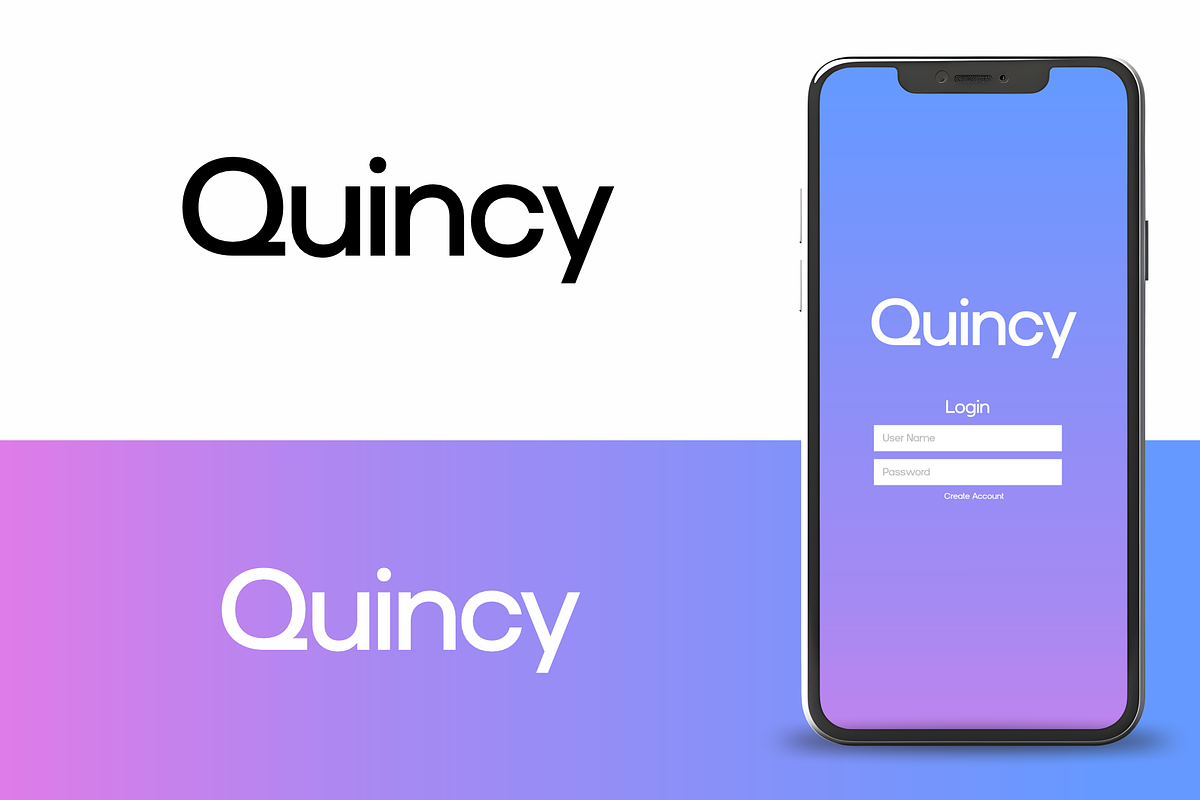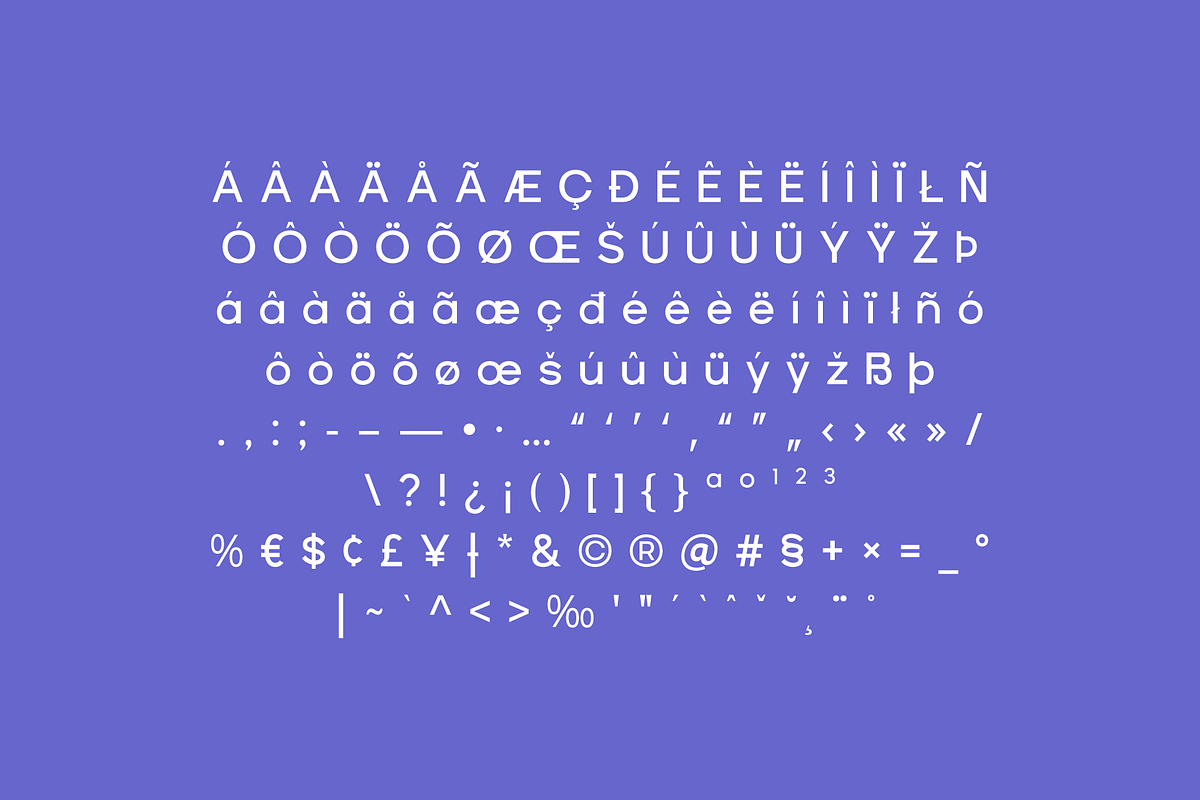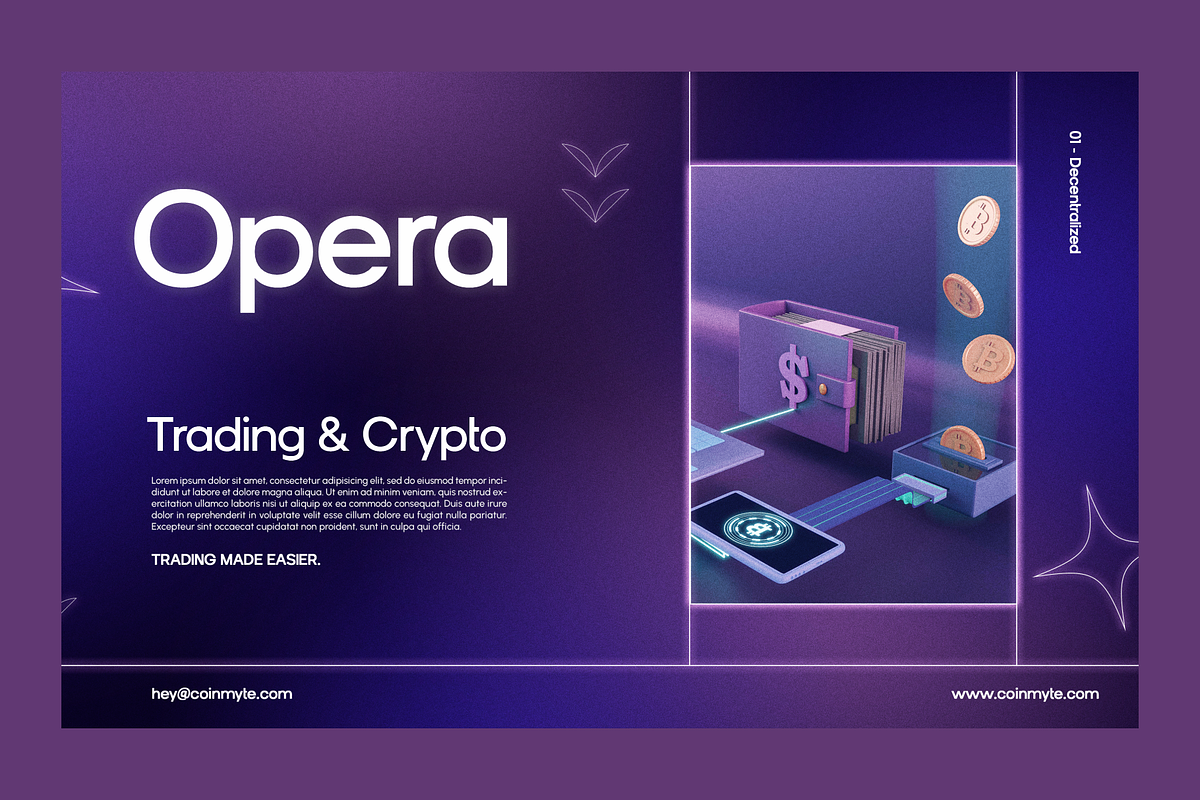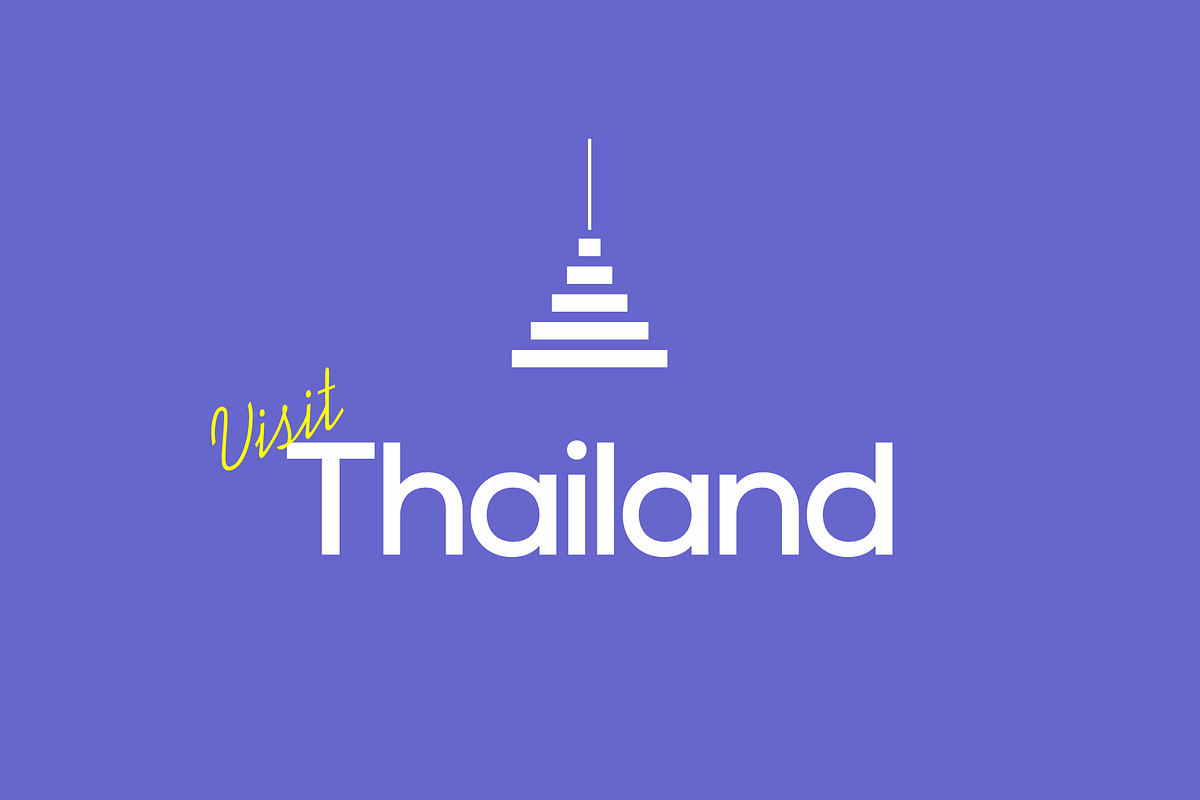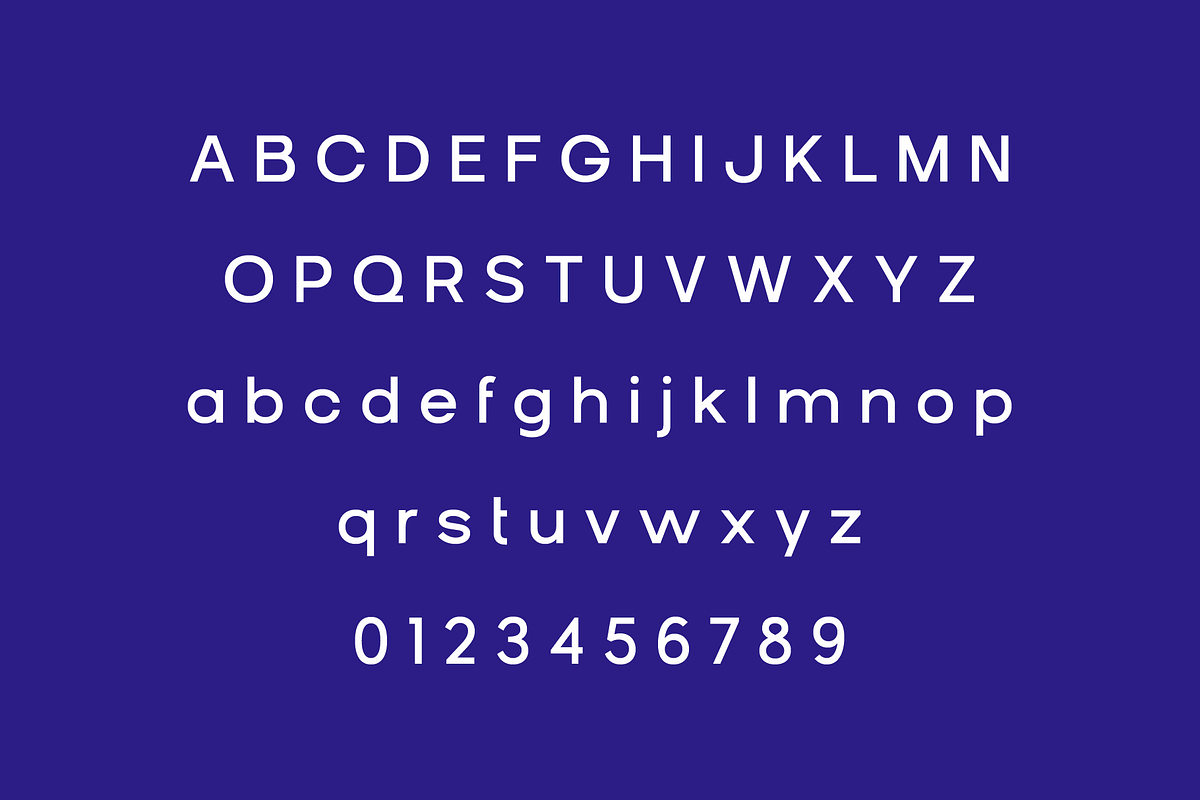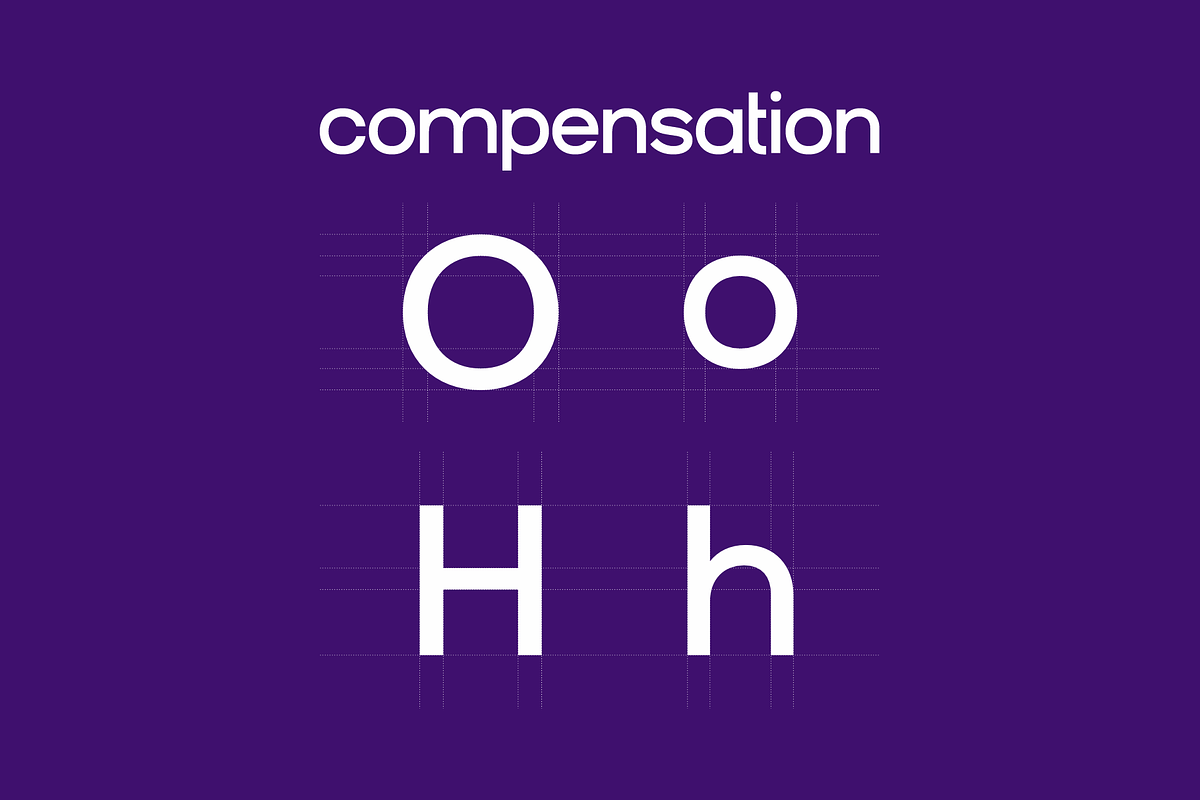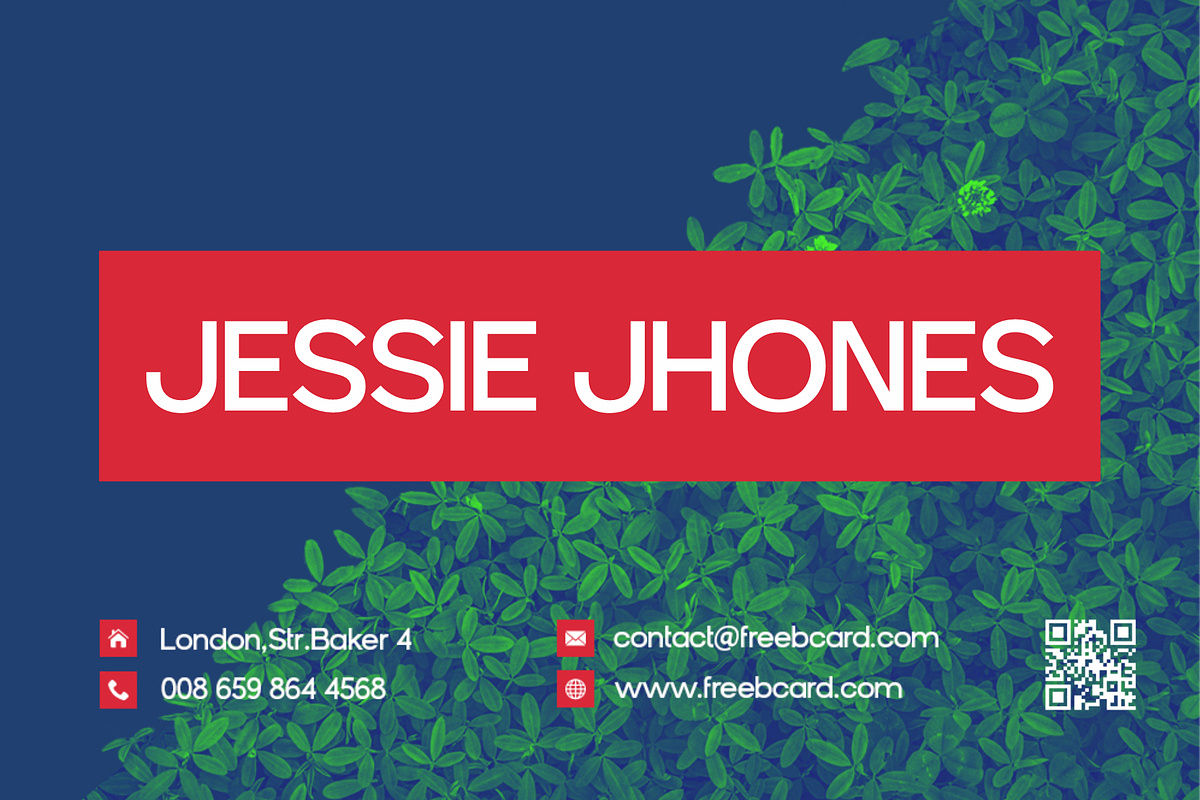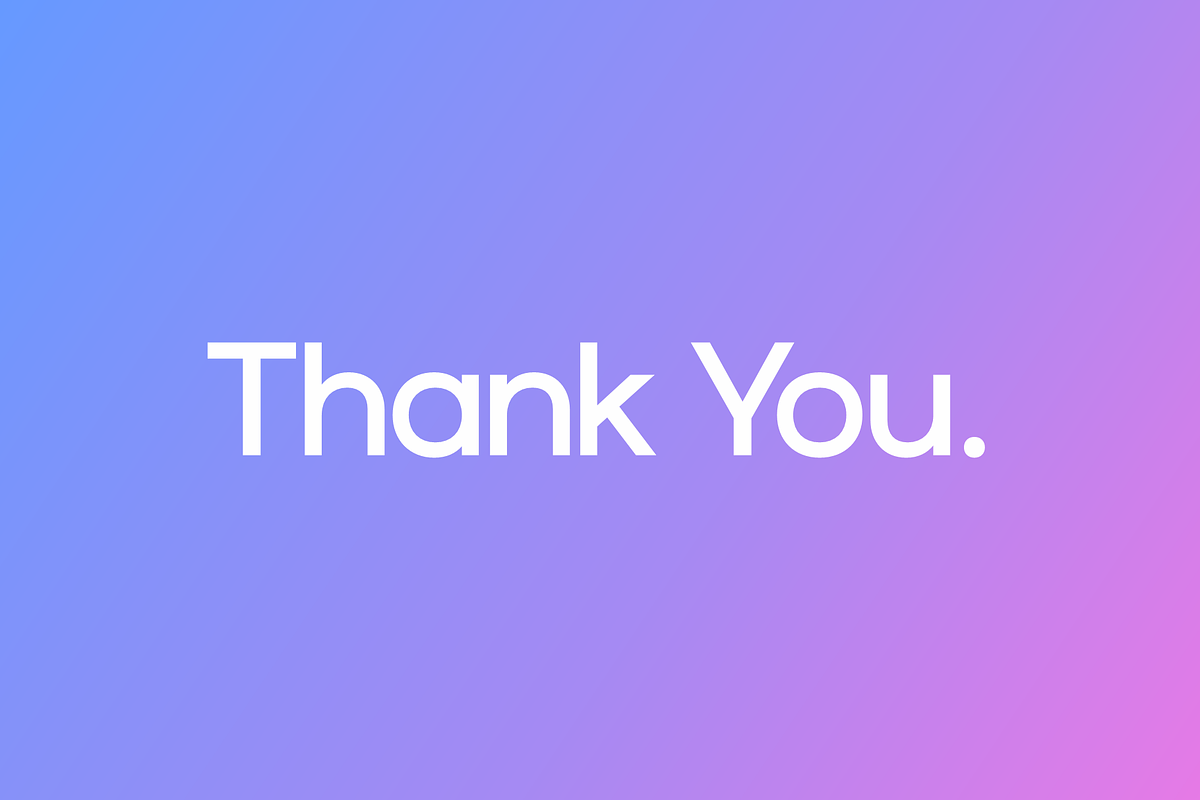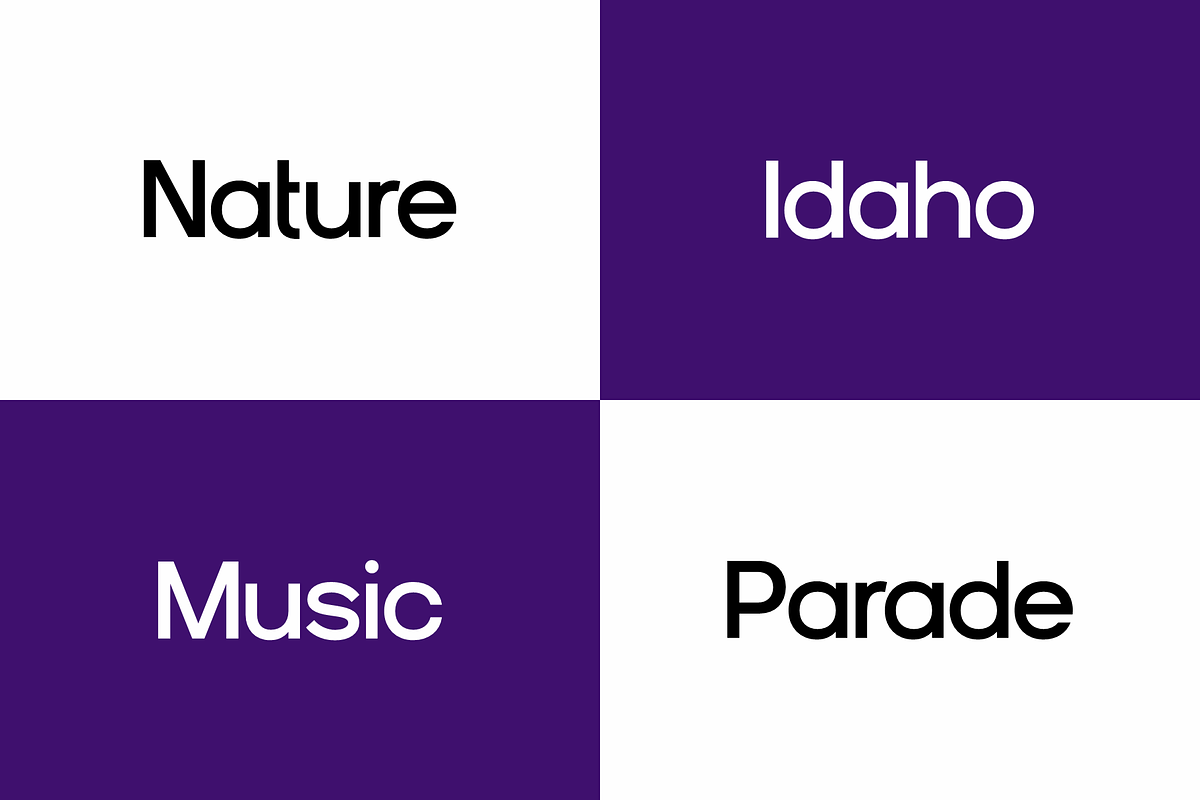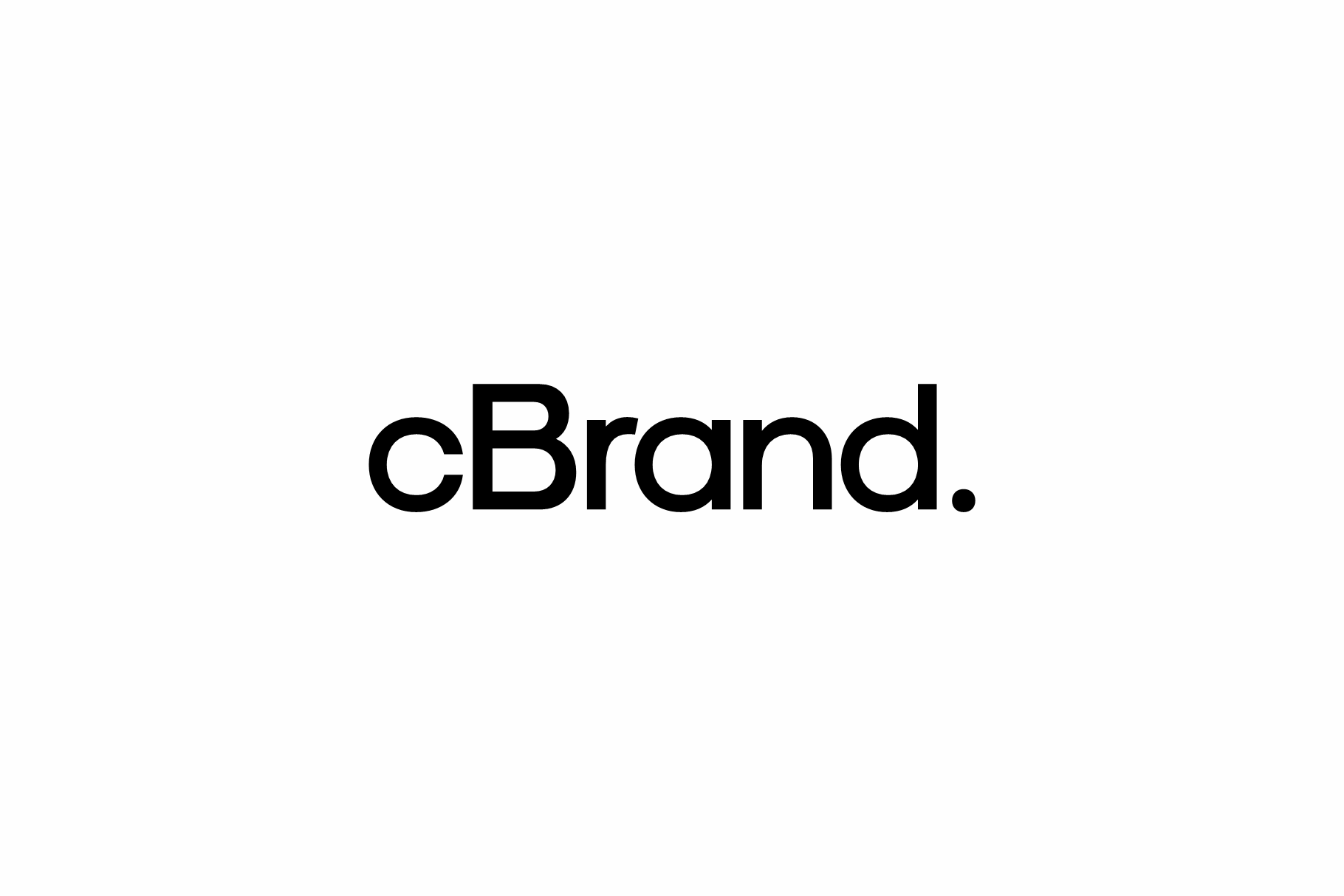
cBrand Logo Font
cBrand Font is a meticulously crafted typeface designed specifically for logos, branding, headers, and titling. With precise kerning and spacing tailored for impactful logos and branding materials, cBrand Font ensures your designs make a lasting impression. Please note, cBrand Font is not suitable for body text, but excels in visual applications where every detail matters. Elevate your design projects with cBrand Font today.